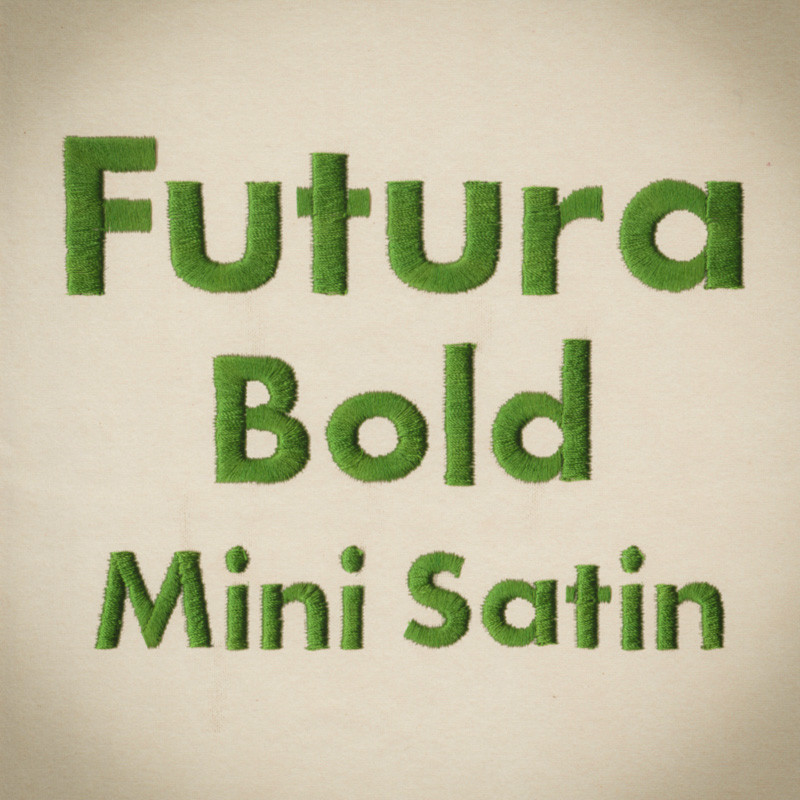
795 Futura Bold Mini Satin Font
795 Futura Bold Mini Satin Font comes in 0.5", 0.75", 1" and 1.25" heights based on the capital "A". Finished in standard Satin Stitch. All sizes included in purchase price. Includes uppercase letters, lowercase letters, numbers and thirteen punctuation marks. (release date: 11/7/24)